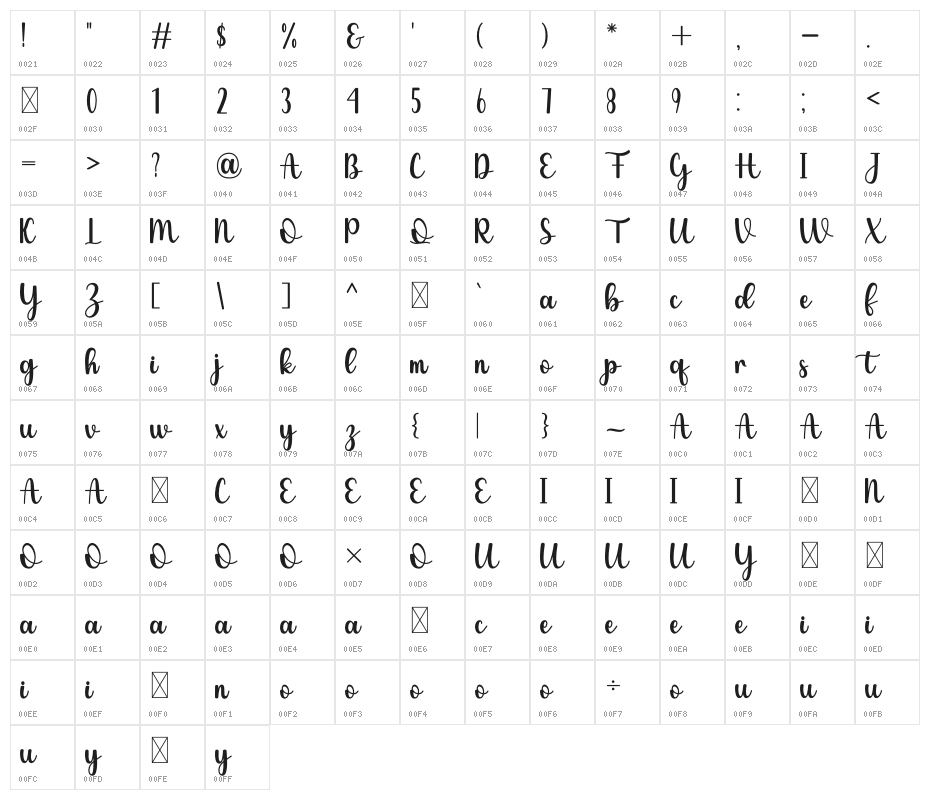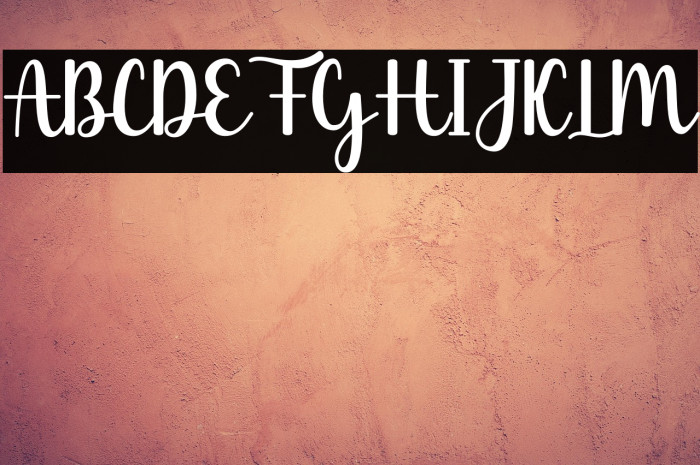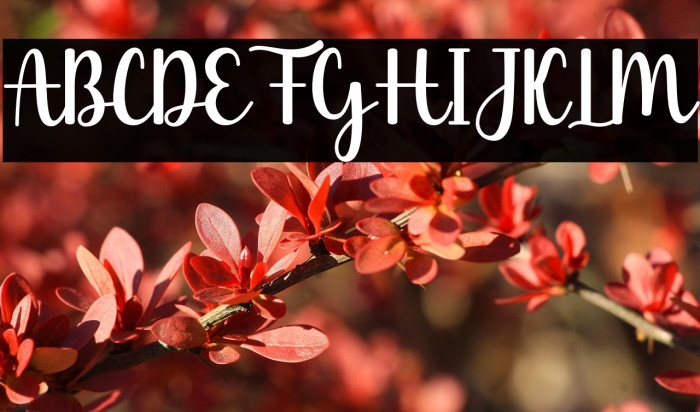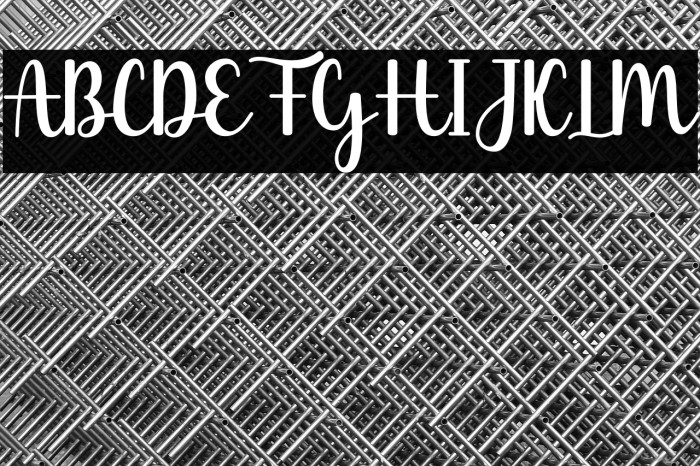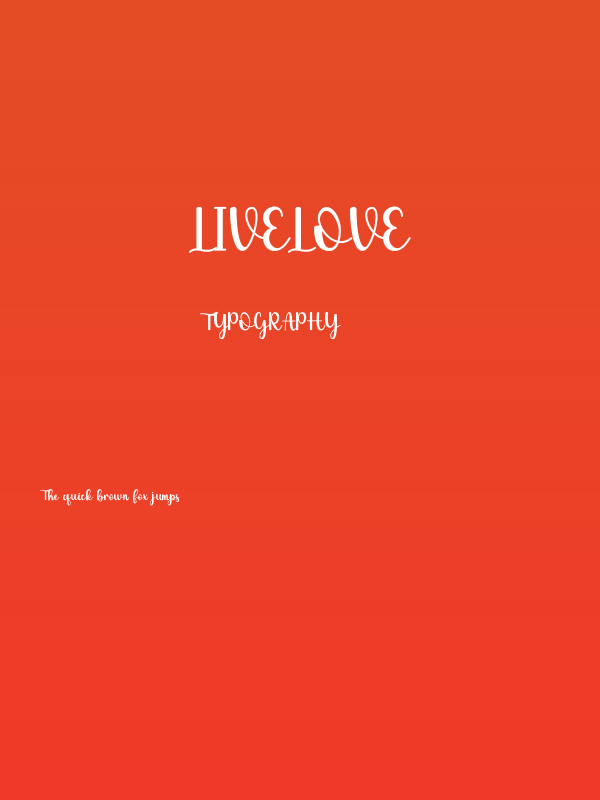
Livelove Font
Livelove Description
This font features a playful and elegant script style with smooth, flowing lines and a handwritten appearance. The uppercase letters are bold and slightly elongated, while the lowercase letters maintain a consistent, rounded form. The numerals are clear and legible, matching the overall aesthetic of the alphabet. Special characters are designed with the same fluidity, adding a cohesive look to the entire set. The font's charm lies in its ability to convey a sense of warmth and friendliness, making it suitable for a variety of creative projects.
| Proposed Projects | Ideal for wedding invitations, greeting cards, branding, and social media graphics. |